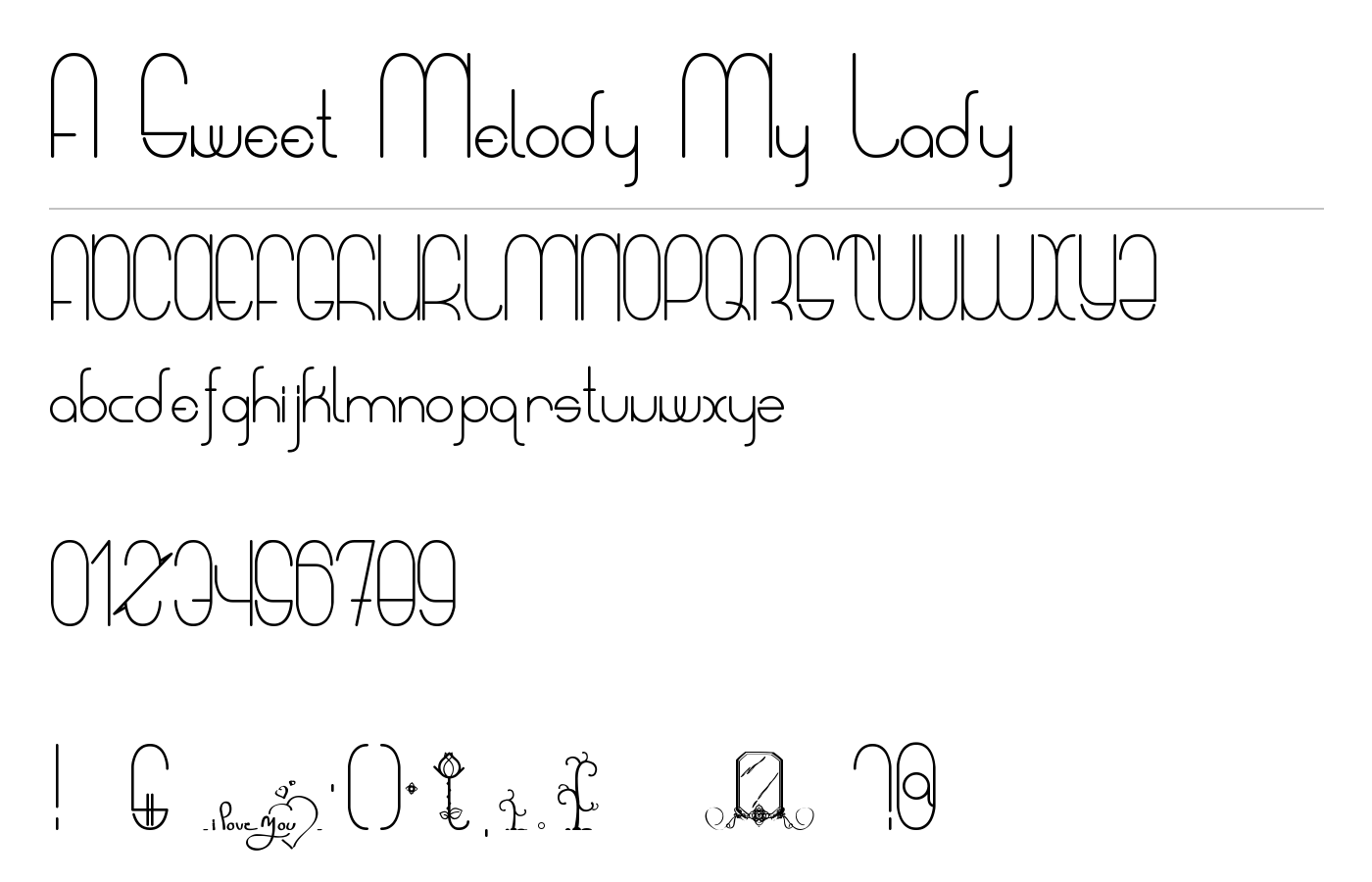
A Sweet Melody My Lady is a delicate, narrow sans serif font with an elegant, whimsical feel. Its thin strokes and tall letterforms give it a graceful, airy appearance, while charming details like the looping curves and unique character shapes add a playful, romantic touch. This font is perfect for invitations, fashion branding, and decorative headlines where a light, stylish personality is desired.
A Sweet Melody My Lady Font
About A Sweet Melody My Lady Font